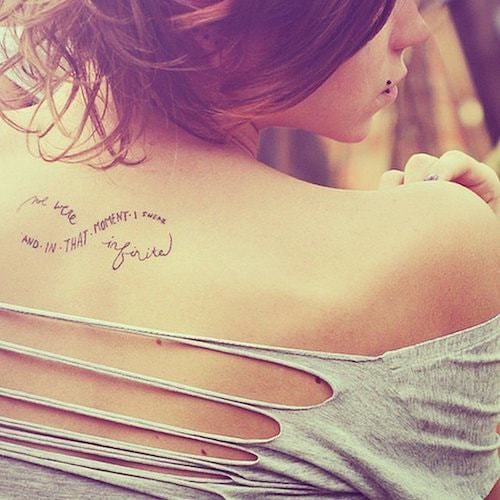
Tattoo Fonts For Women
By tattooing an ink piece on her body actually a women wants to adjoin sexiness in her body. Picking a font for your next tattoo is a very important decision.
Free is spelled in a delicate font on the wearers hand. Love her respect him a cute couples tattoo that reads love her on the mans arm and respect him on the womans arm in an ornate scrolled font. Through help of this awesome list of tattoos for women hopefully you have found a beautiful motif or theme for your tattoo.
Tattoo fonts for women come in all shapes sizes and styles that are designed to enhance and compliment the unique body of the feminine form. In search of ink inspiration. Most women explore font tattoos because they allow for personal expression and give ladies the freedom to make a statement.
Fortunately we have many unique tattoo font styles for men and women such as calligraphy cursive and traditional styles. Diy 26 unique font ideas for your next tattoo. Lettering styles include tribal traditional sailor blackletter fancy cursive script etc.